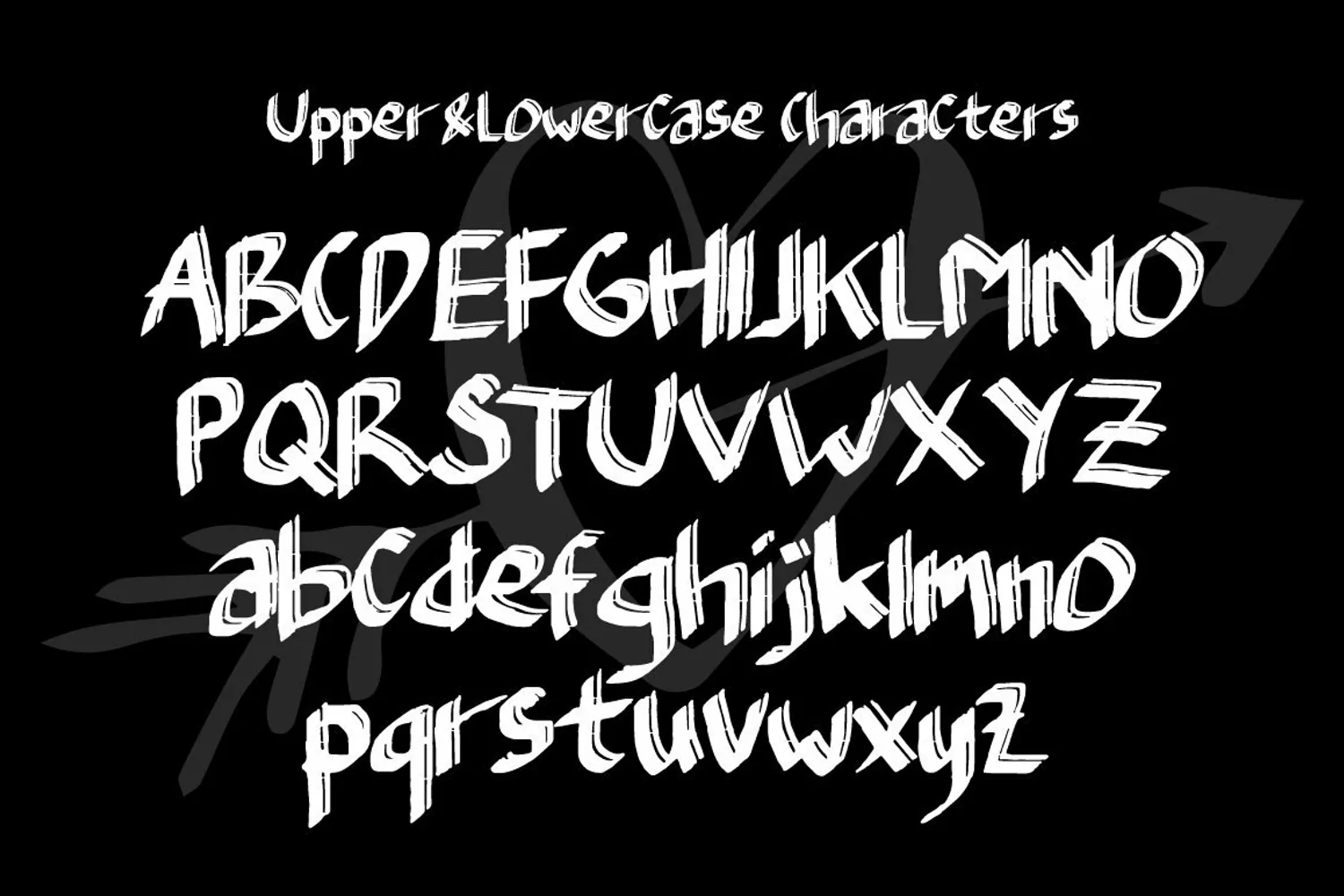
Introducing "Typefloss Handmade Typeface" Can be used for various purposes namely headings, logos, wedding invitations, t-shirts, letterheads, signages, labels, news, posters, badges etc. Product Content: Typefloss Web Font (woff) Features: Uppercase Lowercase Numeral & Punctuations Use a program that supports OpenType features such as Adobe Illustrator CS, Adobe Indesign & CorelDraw X6-X7 to access the full features of this typeface.